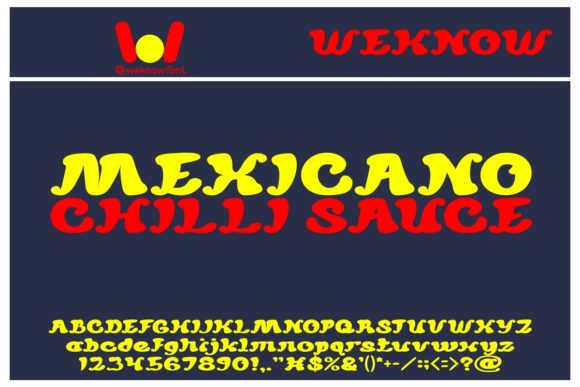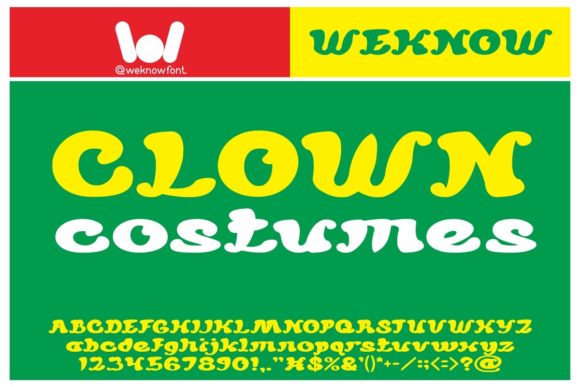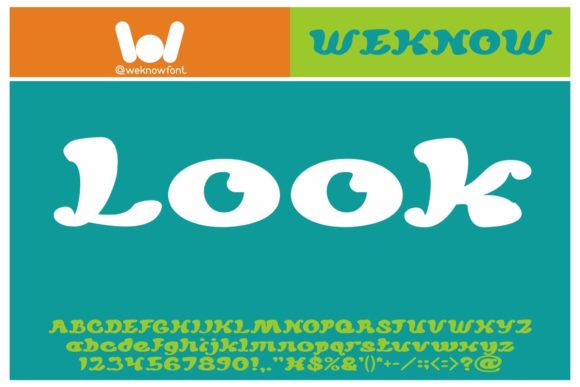
Introduction to Mexicana Chili Sauce Font
Mexicana chili sauce is a fancy slab serif font family, suitable for logos, logotypes, headlines, corporate identity, brand identity, apparel industry, posters, music, movies, games, magazines, books, comics, cartoons, YouTube, Instagram, websites, and so much more.
Key Features of Mexicana Chili Sauce Font
Why Choose Mexicana Chili Sauce Font?
Mexicana Chili Sauce Font offers exceptional quality and versatility, making it a valuable addition to your design toolkit. Whether you’re creating for personal projects or commercial use, Mexicana Chili Sauce Font delivers professional results.